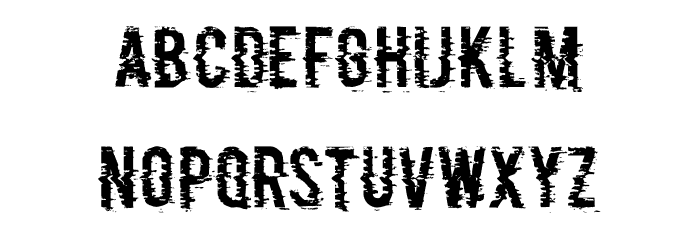
P&F Regular Font
This font features a distressed, grunge style with a bold and impactful appearance. Each character appears as if it has been weathered or eroded, giving it a unique texture that stands out. The uppercase letters are uniform in height, and the overall design conveys a sense of ruggedness and edginess. This font is ideal for projects that require a bold statement or an urban, gritty aesthetic. The characters are well-defined despite the distressed effect, ensuring readability while maintaining a strong visual impact.
A bold, distressed font with a grunge aesthetic.
- Font: P&F Regular
- Proposed Projects: Perfect for album covers, posters, streetwear branding, or any design needing a bold, edgy look.
- Overall Style: Grunge, Urban, Edgy